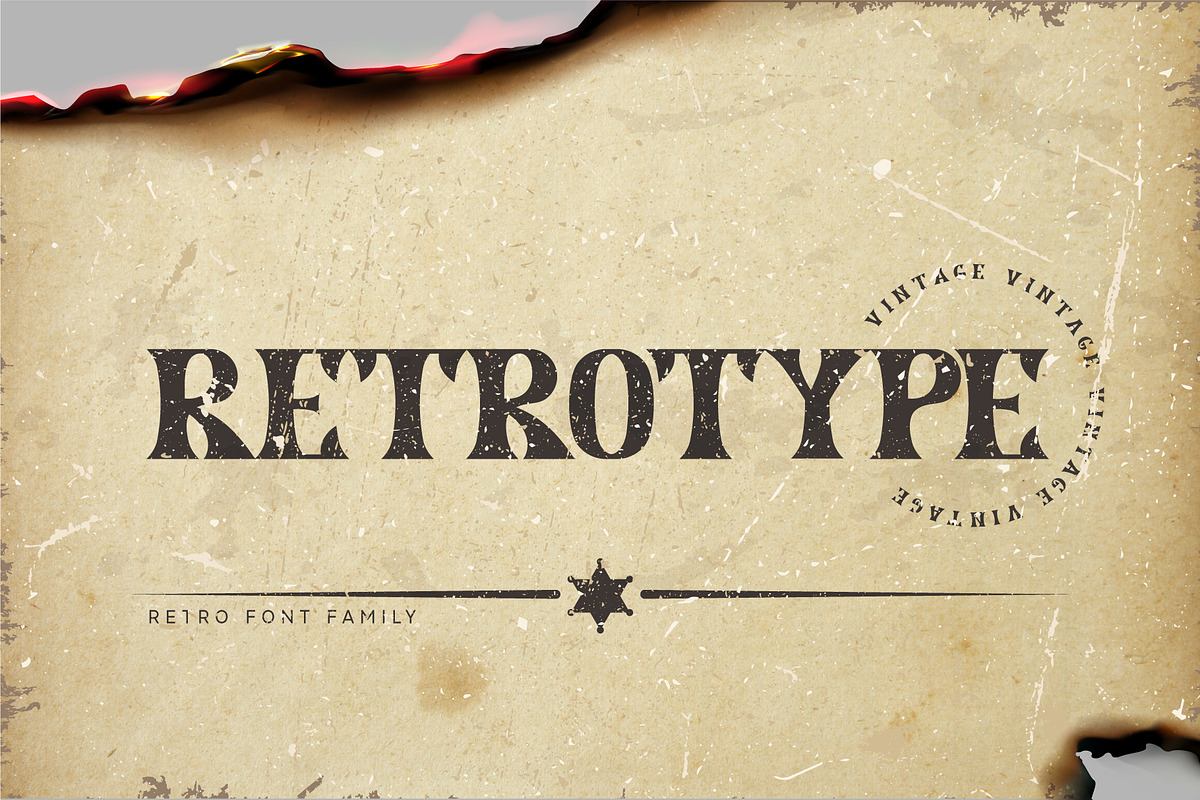
Retrotype. Western Serif font family Free Download
Retrotype - Western Serif Font Family Free Download is a bold and adventurous typeface that captures the rugged, vintage aesthetic of the American West. With strong, distinctive serifs and a unique, western flair, this font family is perfect for logos, posters, branding, and any project that needs a bit of western charm.
Retrotype - Western Serif Font Family Free Download offers a range of weights, providing versatility for both display and text applications. Whether you're designing for a western-themed event, a cowboy-inspired brand, or creating dynamic promotional materials, this font family brings authenticity and character to your typography. Download it today and add a touch of western nostalgia to your next creative project!